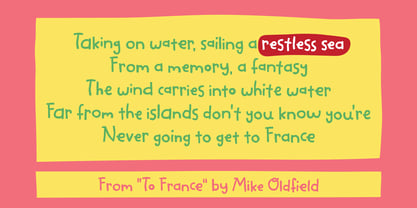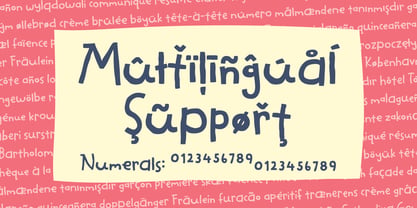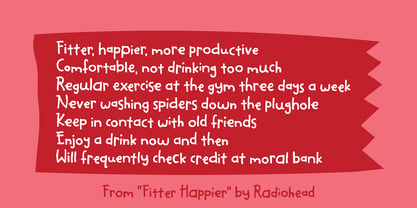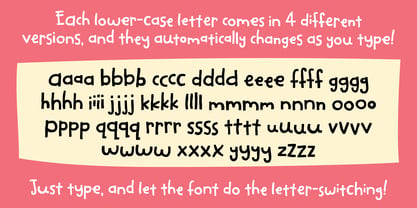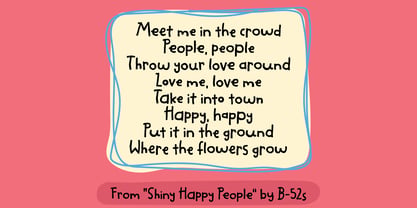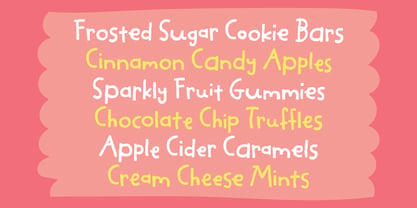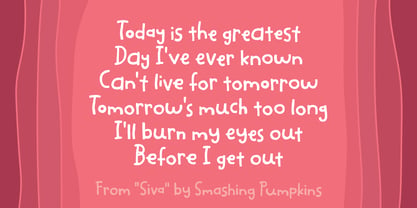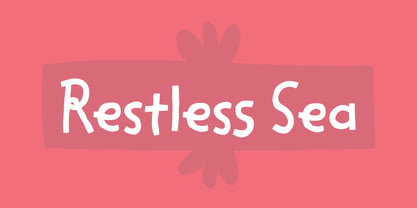
Restless Sea
by Bogstav
The Restless Sea Font Family was designed by Jakob Fischer and published by Bogstav. Restless Sea contains 2 styles and family package options. More about this family
"Restless Sea" has a playful, hand-drawn, slightly childlike look with soft, rounded strokes. The letters feel casual and friendly, almost as if written with a thick paint marker or brush pen. The uneven baseline and subtle variations in letter height give it an organic, handmade character. The curves are smooth rather than sharp, and many letters—like g, y, e, and r—have whimsical, almost cartoonish shapes. Overall, the style is informal, warm, and expressive, ideal for creative or artistic designs that need a relaxed, personal and organic feeling. I have added 4 different versions of each letter, and these automatically changes as you type!